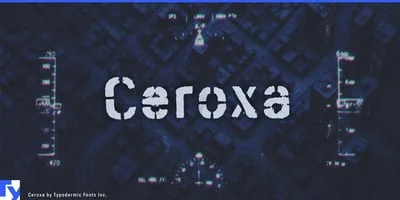
Ceroxa Font
Ceroxa Font is perfect for cutting-edge tech branding, futuristic product packaging, sci-fi entertainment projects, innovative startup logos, digital transformation campaigns, modern gaming interfaces, and next-generation design applications.
What makes Ceroxa Font exciting is its revolutionary design approach and futuristic vision, featuring avant-garde letterforms that push typographic boundaries while delivering exceptional readability and forward-thinking aesthetic appeal.
The Ceroxa Font family includes Ultra Light, Light, Regular, Medium, Bold, and Heavy weights, plus experimental variants and digital effects that enhance the font's innovative character and creative possibilities.
Ceroxa Font stands at the forefront of typographic innovation and futuristic design thinking. This groundbreaking typeface represents a bold leap into the future of visual communication, combining experimental letterforms with practical functionality to create a unique aesthetic language that speaks to progressive audiences and forward-thinking organizations. The font's revolutionary character and cutting-edge appearance make it ideal for brands that want to position themselves as industry pioneers and innovation leaders.
Creative agencies and technology companies consistently select Ceroxa Font for projects that require breakthrough visual impact and futuristic credibility. The typeface's experimental construction and visionary personality make it exceptionally effective for startups, tech innovators, and creative organizations who want to communicate disruption, innovation, and next-generation thinking. Each character has been designed to challenge conventional typography while maintaining the functionality necessary for professional communication and brand recognition.
The innovative qualities of Ceroxa Font extend beyond its experimental appearance to include practical versatility for contemporary design challenges. Despite its avant-garde character, the font maintains strong readability across digital platforms and print applications, making it suitable for both dramatic display purposes and functional interface design. The comprehensive character set includes modern symbols and international support that make it appropriate for global brands and digital-first organizations.
Tech startups, creative studios, and innovation-focused companies frequently choose Ceroxa Font because of its ability to instantly communicate forward-thinking values and disruptive potential. The typeface's futuristic aesthetic helps establish brand recognition in competitive technology markets while appealing to audiences who value creativity, innovation, and cutting-edge solutions in their technology choices and business partnerships.